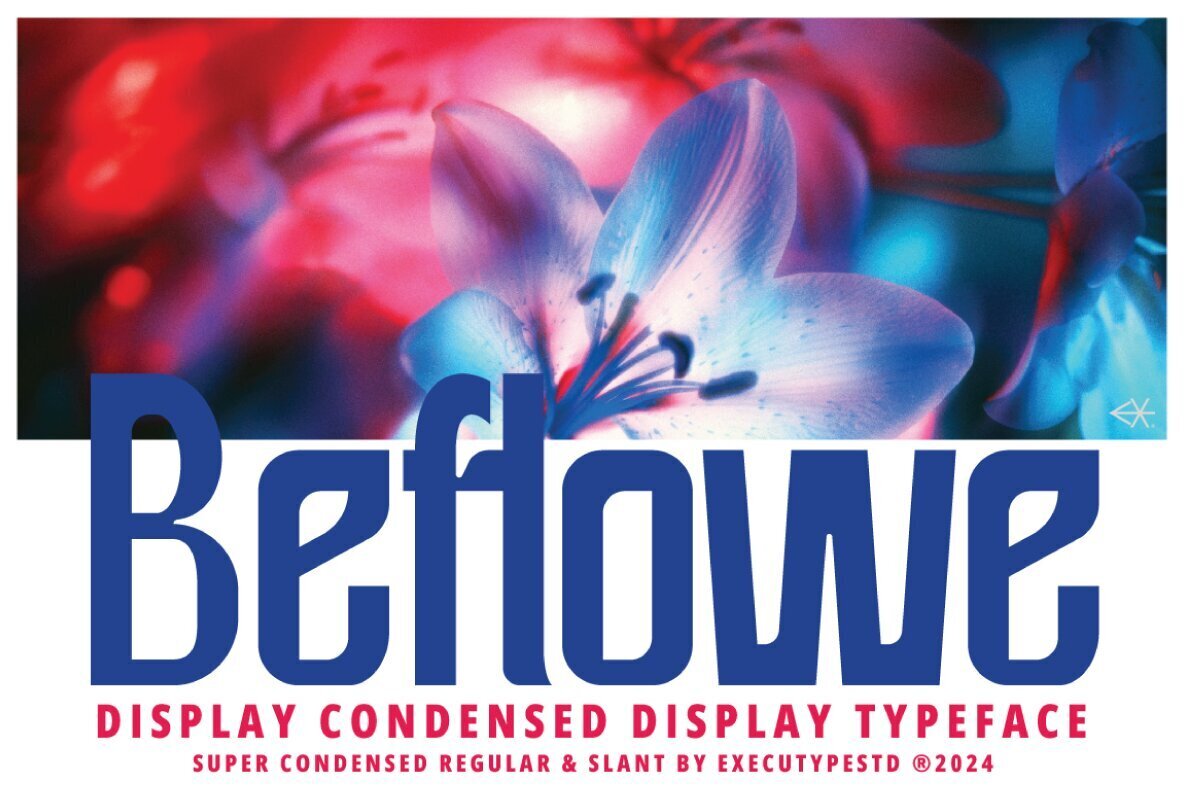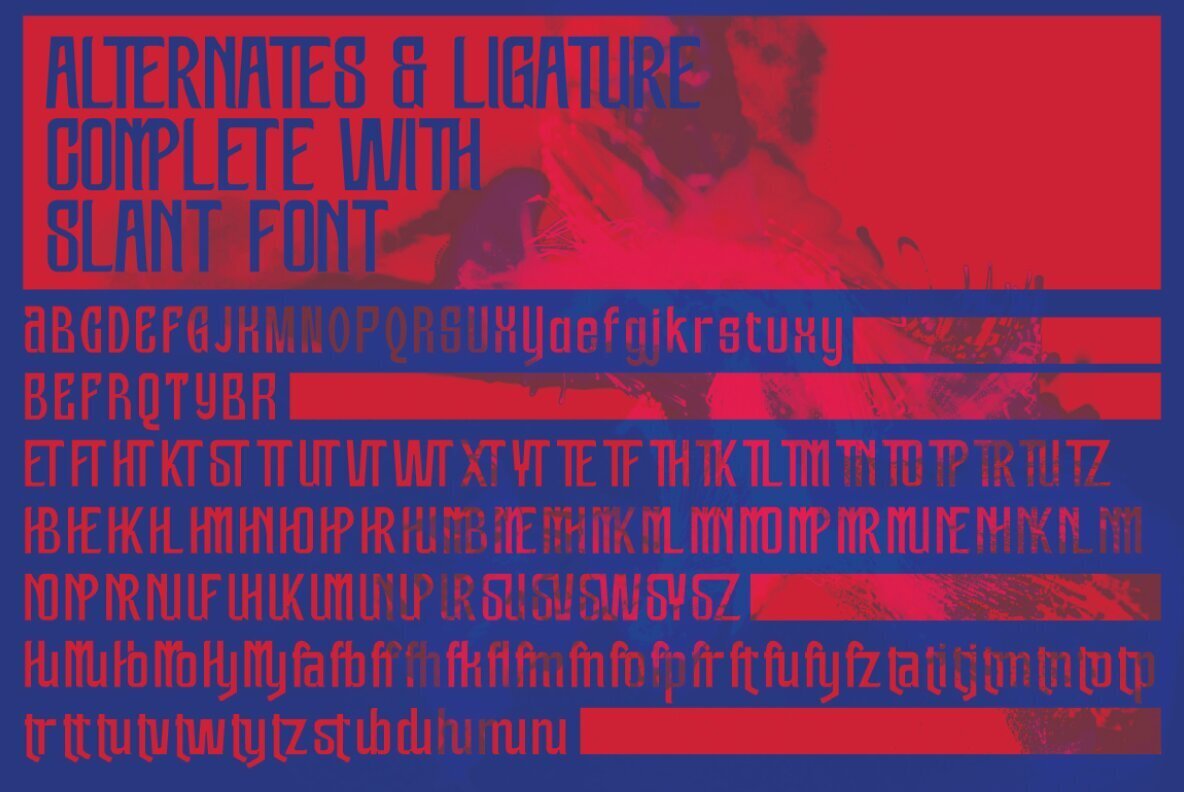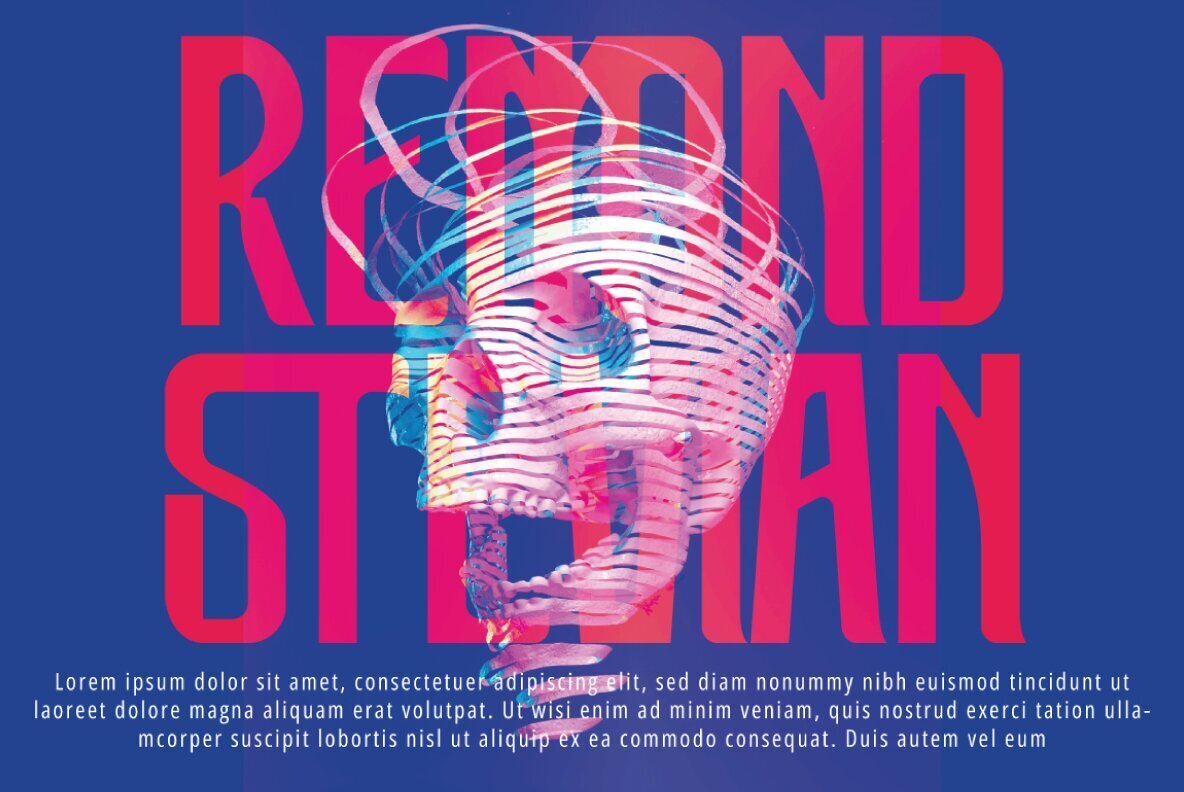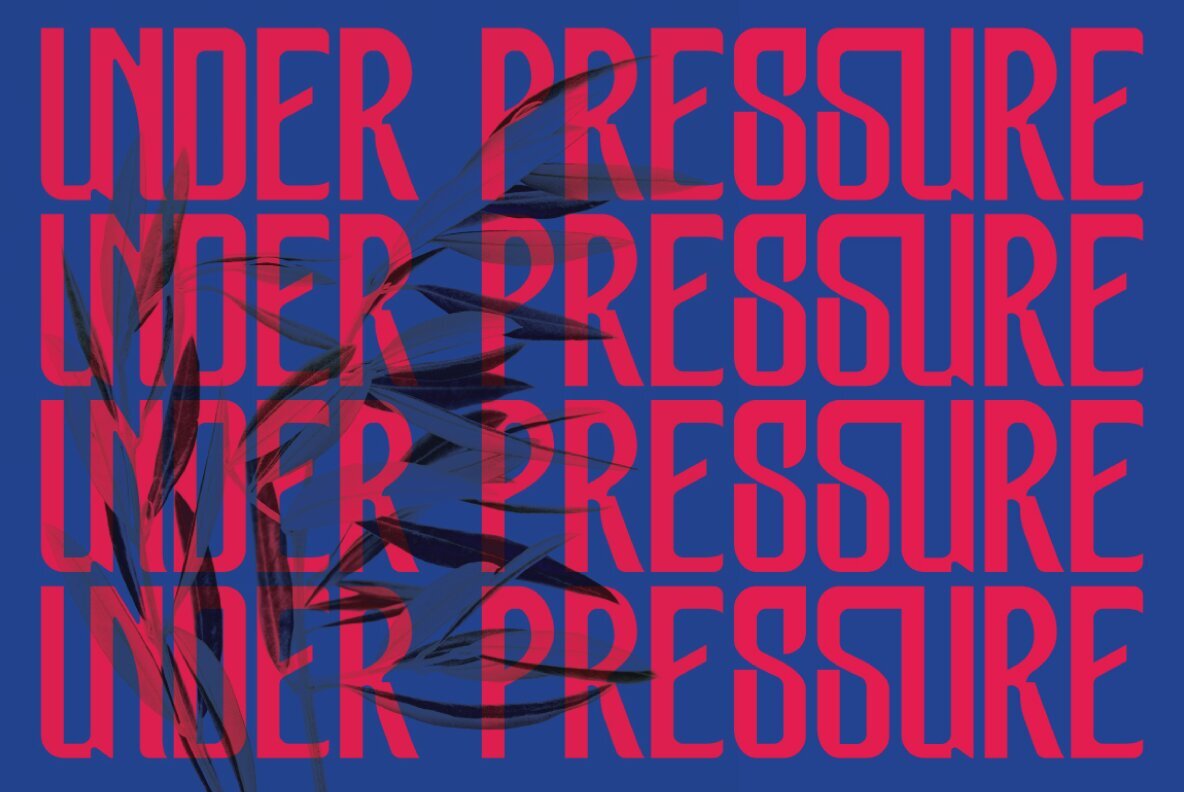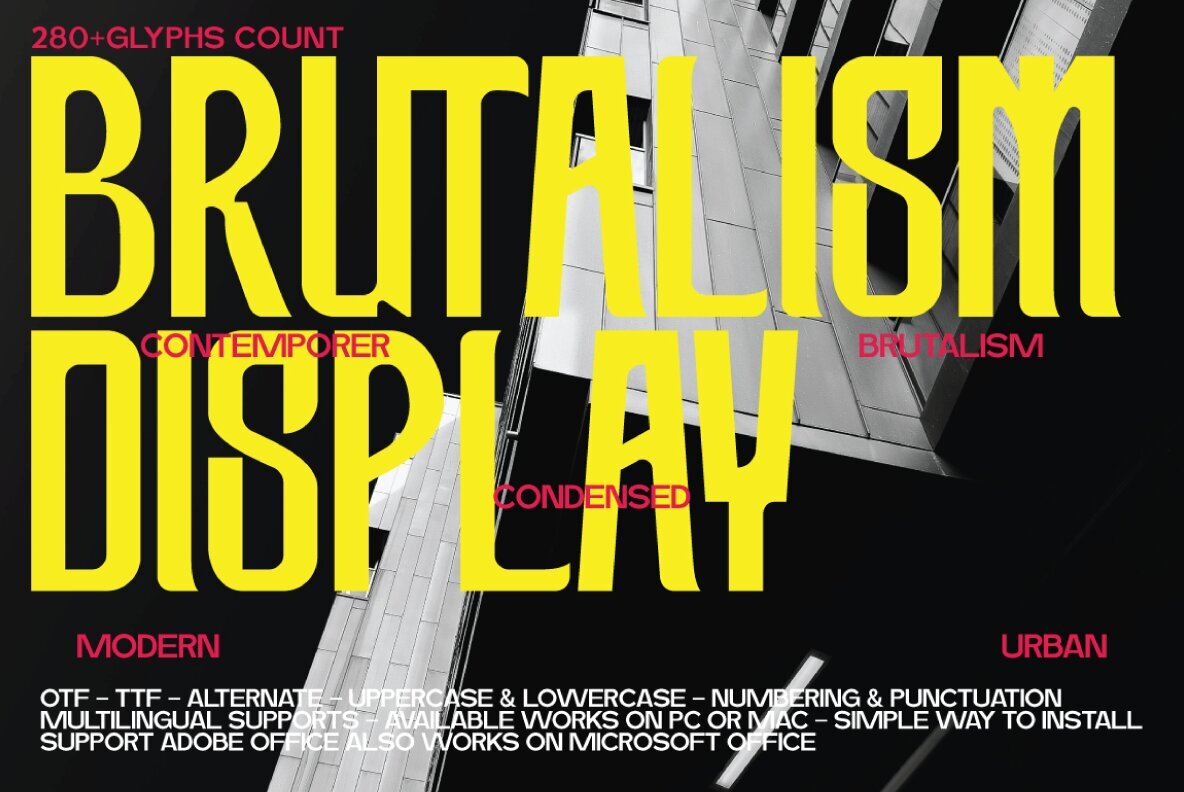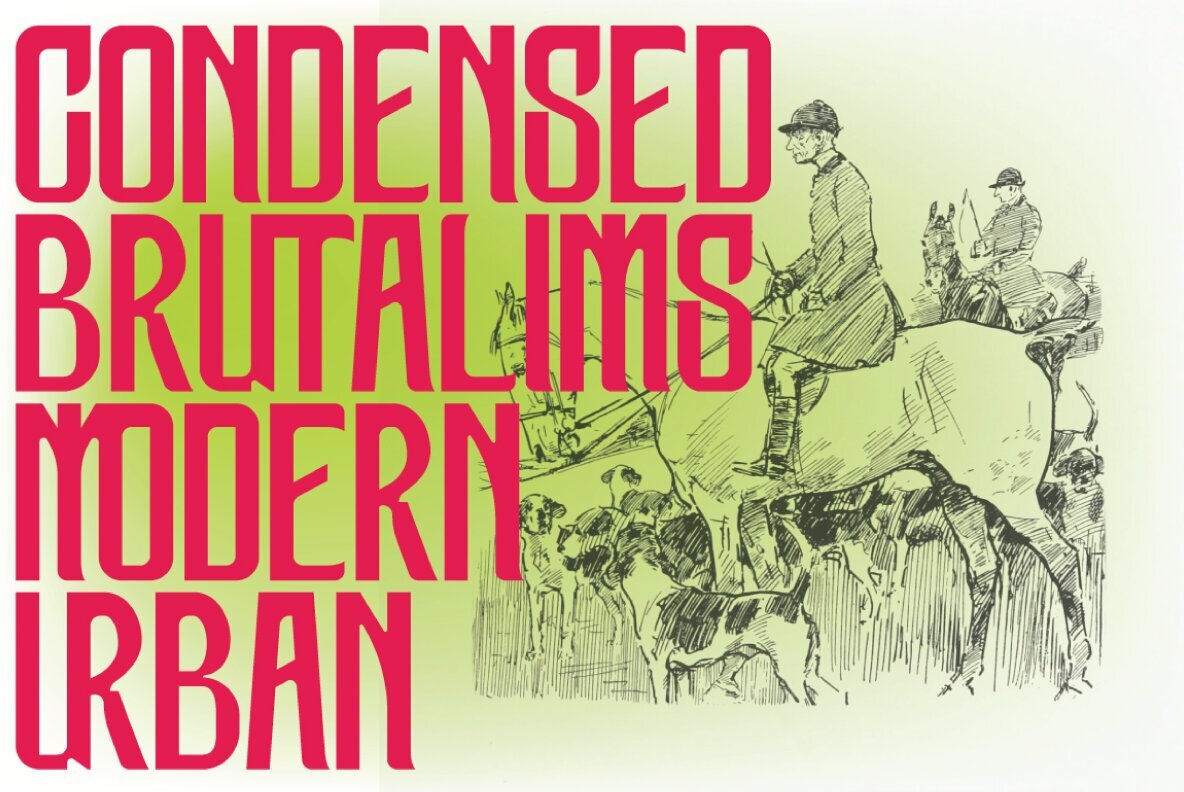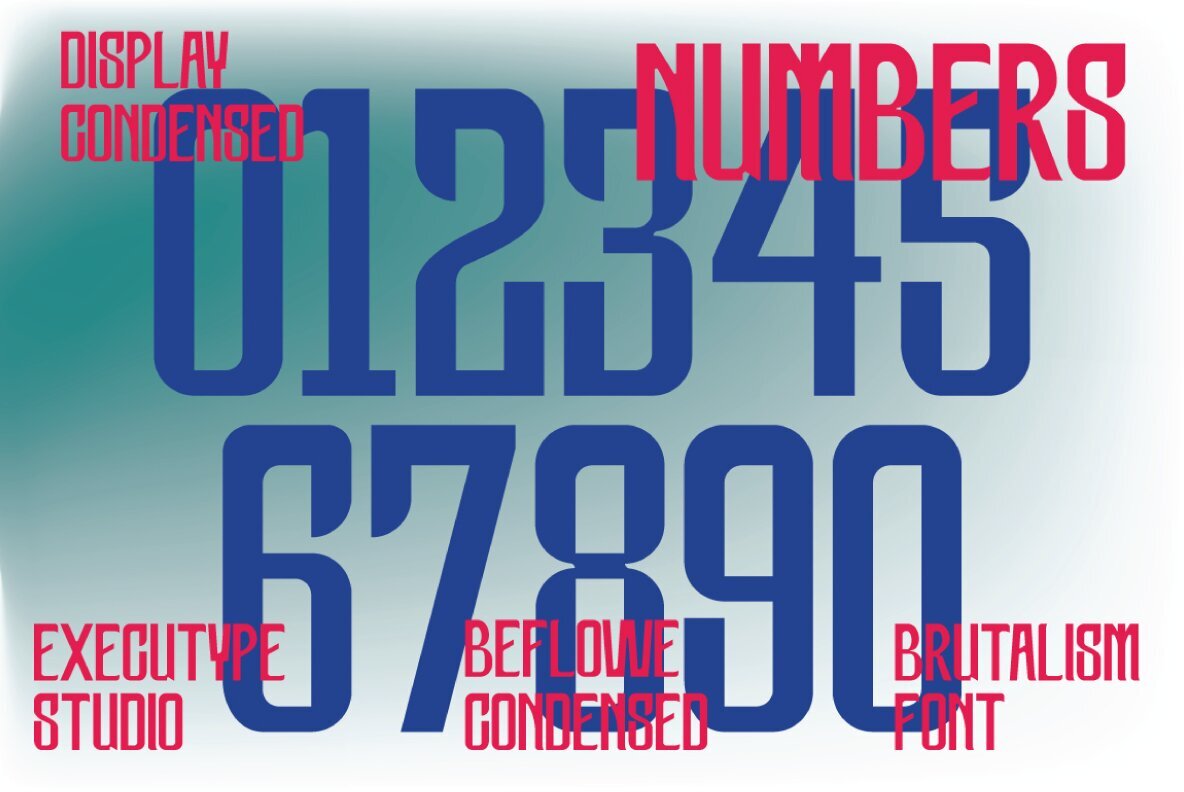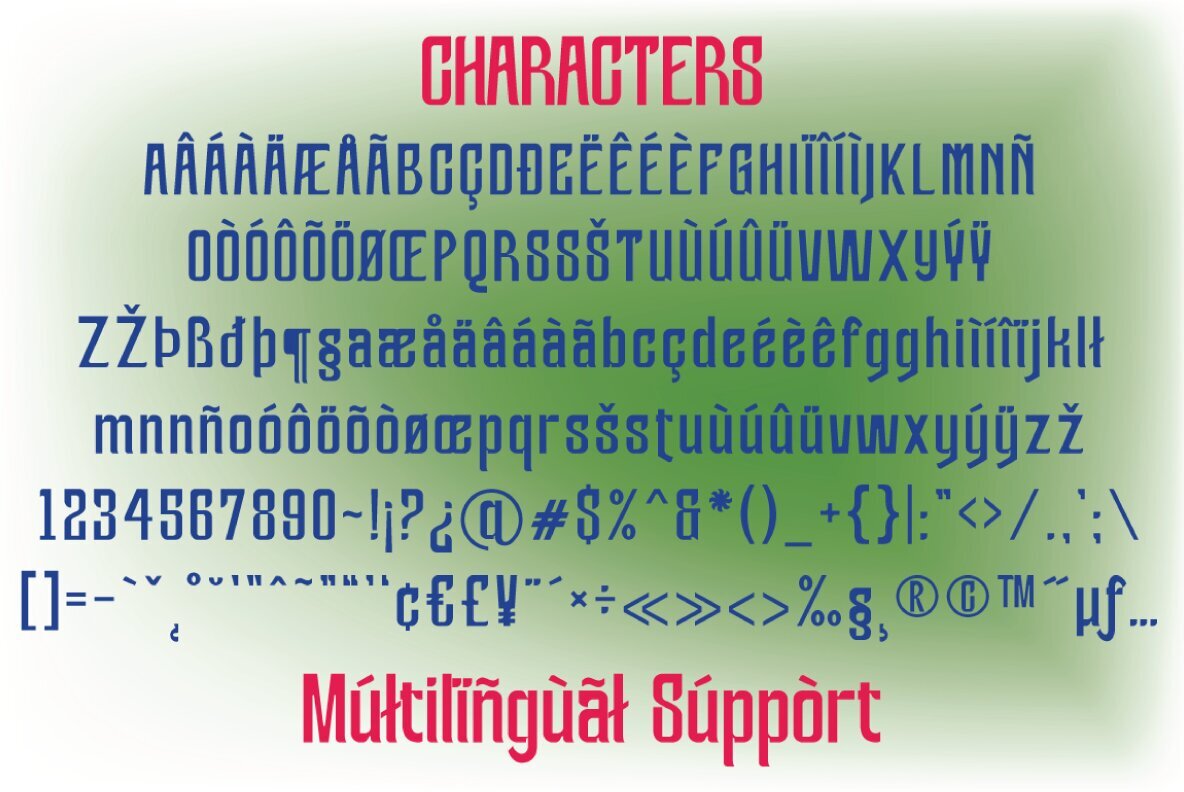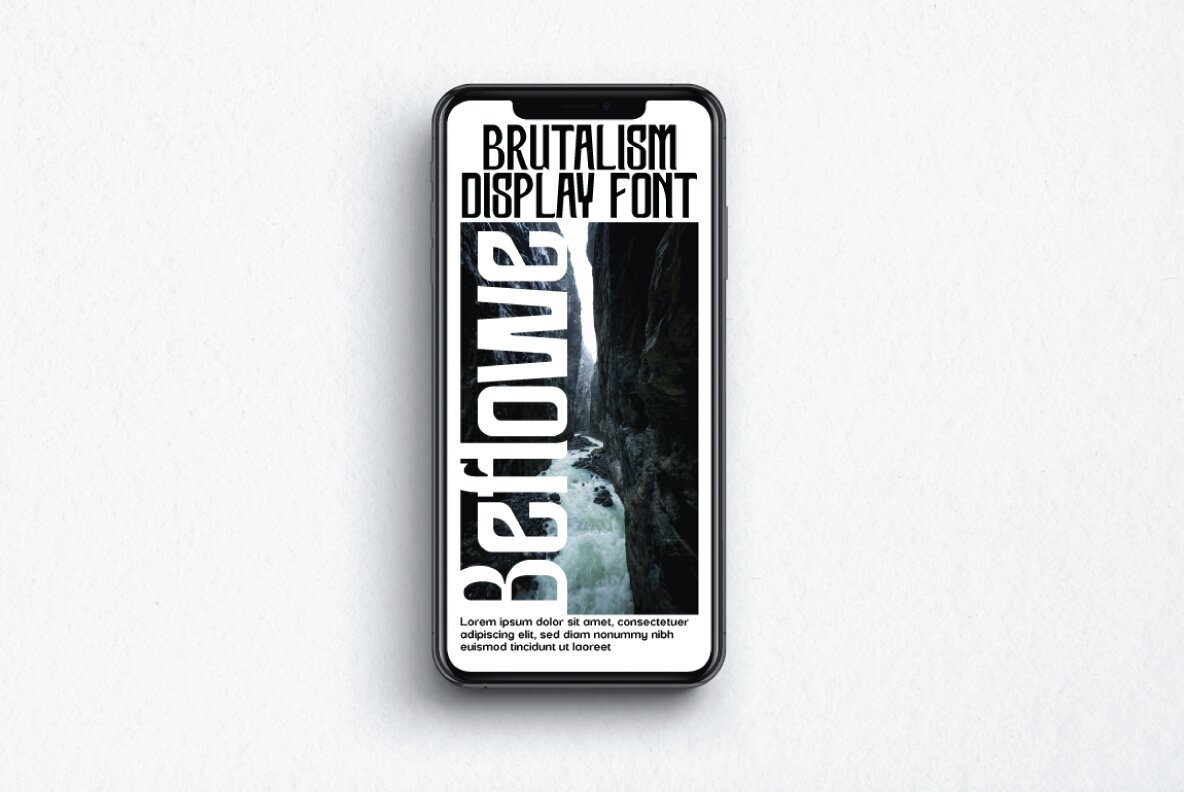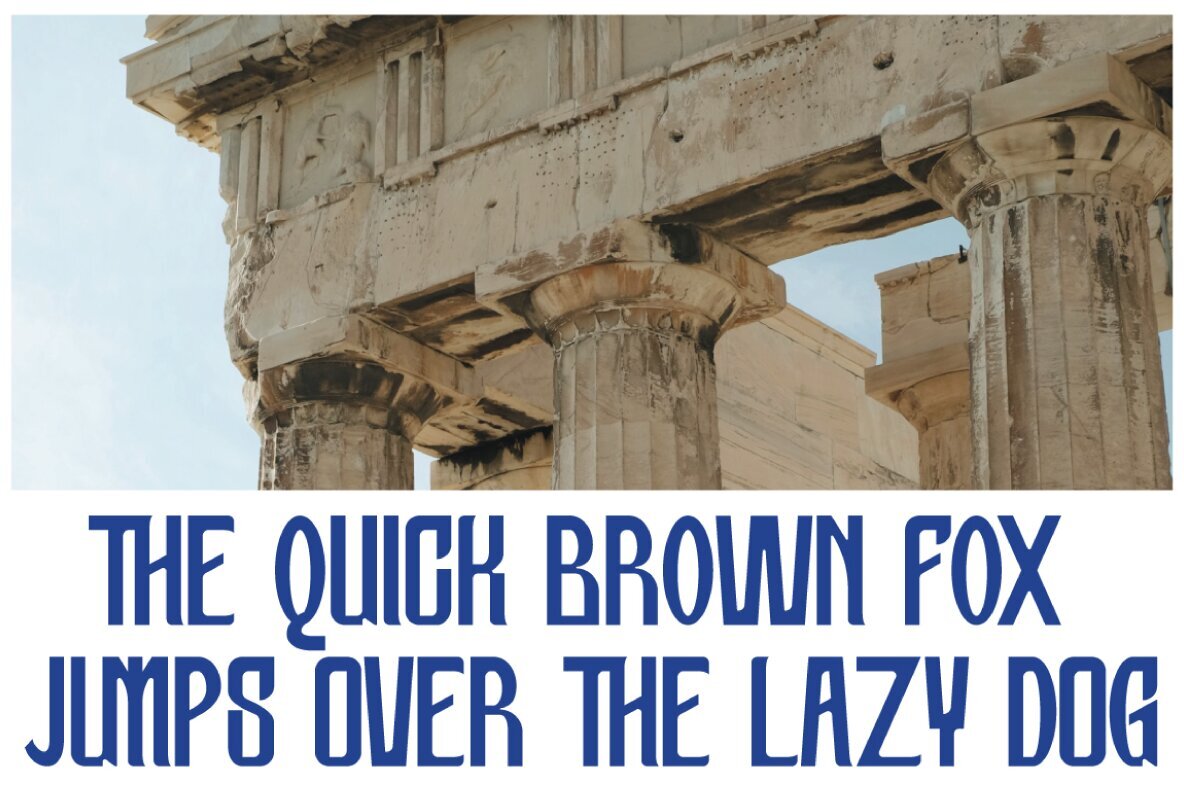
Beflowe Condensed Font
Beflowe Condensed Display offers a bold, narrow look that makes any headline or display stand out. Its modern style carries retro and vintage influences, making it a strong choice for designers who want their projects to make an immediate visual impact. This typeface balances clean lines with expressive details, designed specifically for eye-catching layouts and striking presentations. With over 250 glyphs and a range of OpenType features—including swash, stylistic sets, alternates, and ligatures—Beflowe Condensed Display adapts to diverse design needs. It supports international characters, punctuation, numbers, and uses PUA Unicode for seamless access to all alternate characters, ensuring smooth integration into your workflow.Beflowe Condensed Display Typeface